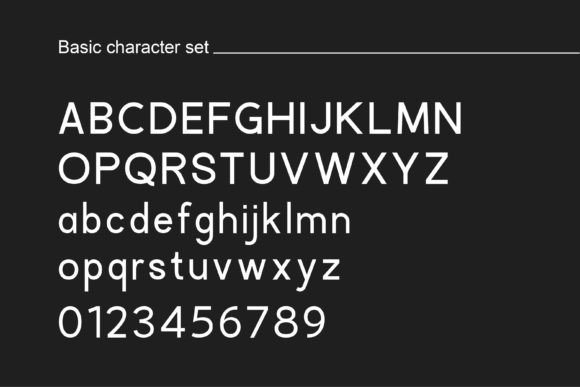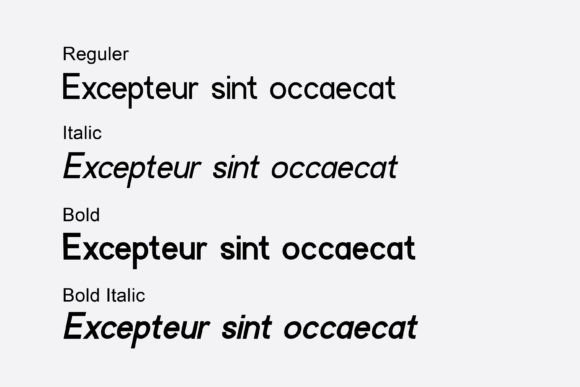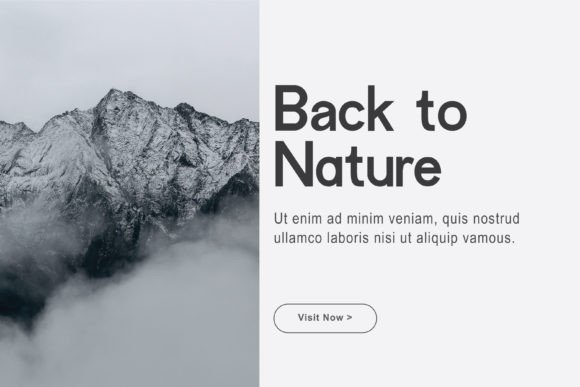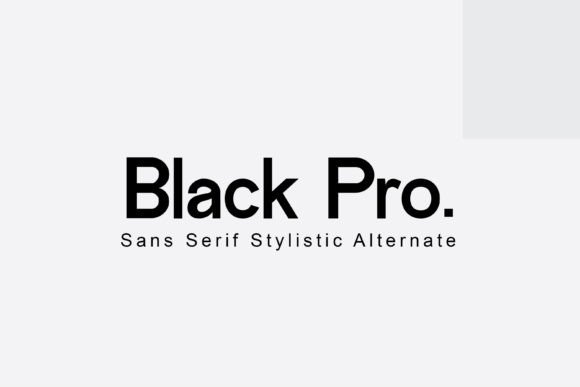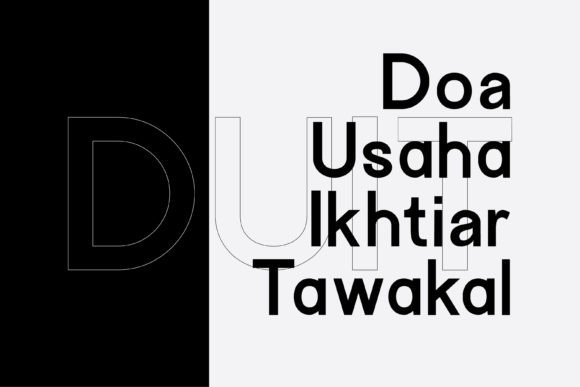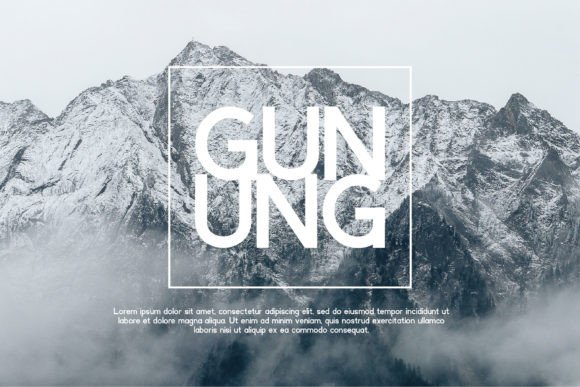
Discover the Timeless Charm of Black Pro Font
Have you ever been scrolling through your social media feed, and suddenly, a post catches your eye? The combination of colors, typography, and imagery all come together to create a visually stunning piece of design that leaves you wanting more. For designers, moments like these are a constant reminder of the power of typography in capturing our attention and conveying a message.
That’s where the Black Pro Font comes in – a sleek and modern sans serif font designed to elevate your designs to the next level. With its minimalist and clean vibe, the Black Pro Font is perfect for book covers, magazines, social media posts, invitations, and so much more. Whether you’re a seasoned designer or just starting out, this font is a valuable addition to your toolkit, offering a level of sophistication and elegance that’s hard to find in other fonts.
Black Pro Font Key Features
- Font Family: Black Pro is a sans-serif font family designed for optimal readability and versatility.
- Character Set: Includes a wide range of characters, including Latin, Cyrillic, and Greek alphabets, as well as punctuation and symbols.
- Size: Available in 4 weights (Light, Regular, Medium, and Bold) and 4 widths (Regular, Condensed, Compressed, and Extended) for customized look and feel.
- Unique Characteristics: Black Pro features a clean and modern design, with a focus on legibility and readability, making it ideal for digital and print applications.
Designer Review: Black Pro Font
Overall, I’d say Black Pro Font is a solid addition to any designer’s toolkit. Here’s what I like about it:
- ✨ **Wide range of applications**: Black Pro Font is incredibly versatile and can be used for a variety of projects, from posters to business cards.
- ✨ **High-quality lines**: The font’s clean lines and precise edges make it perfect for projects that require a touch of sophistication.
- ✨ **Easy to read**: Despite its bold appearance, Black Pro Font is surprisingly easy to read, even in smaller font sizes.
However, I do have a few reservations:
- ⚠️ **Limited expressiveness**: Black Pro Font is a very straightforward font, which can make it feel a bit generic in certain situations.
- ⚠️ **Lack of nuance**: The font’s bold appearance can sometimes come across as too aggressive, particularly in situations where a more subtle approach is needed.
Overall, I’d say Black Pro Font is a great choice for designers who need a clean, versatile font that can handle a wide range of projects. While it may not be the most expressive or nuanced font out there, it’s a solid addition to any designer’s toolkit.
Tips for Getting the Most Out of Black Pro Font
Use Black Pro Font for creating bold, modern headings and titles. It pairs well with sans-serif fonts for a clean and minimalist look.
Experiment with different font sizes and styles to create visual interest and hierarchy in your designs.
Use Black Pro Font for:
- Business cards and resumes
- Marketing materials and social media graphics
Alternatives to Black Pro Font for Designers
Avenir Next is a modern sans-serif font designed by Jean François Porchez. It is a versatile font suitable for a wide range of applications, including corporate branding, advertising, and editorial content. Avenir Next is a more elegant and refined alternative to Black Pro Font, with a more subtle flair and a larger character set.
Comparison: Avenir Next has a more refined and elegant feel compared to Black Pro Font’s bold and industrial look.
Montserrat is a sans-serif font designed by Julieta Ulanovsky. It is a geometric font inspired by urban typography and is ideal for use in digital products, such as websites and mobile apps. Montserrat is a more modern and sleek alternative to Black Pro Font, with a focus on legibility and clarity.
Comparison: Montserrat has a more modern and digital feel compared to Black Pro Font’s more traditional and industrial look.